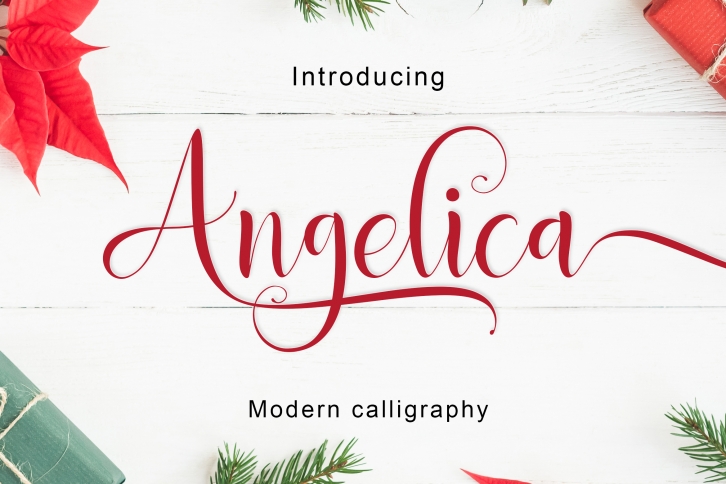
Angelica is a trendy and unique font with an authentic style. It was designed by Takiy and it's a great choice for creative people who need such a font. It was released on November 6, 2019 and the file size is 4.39 MB. Angelica will add an organic vibe to any design idea!